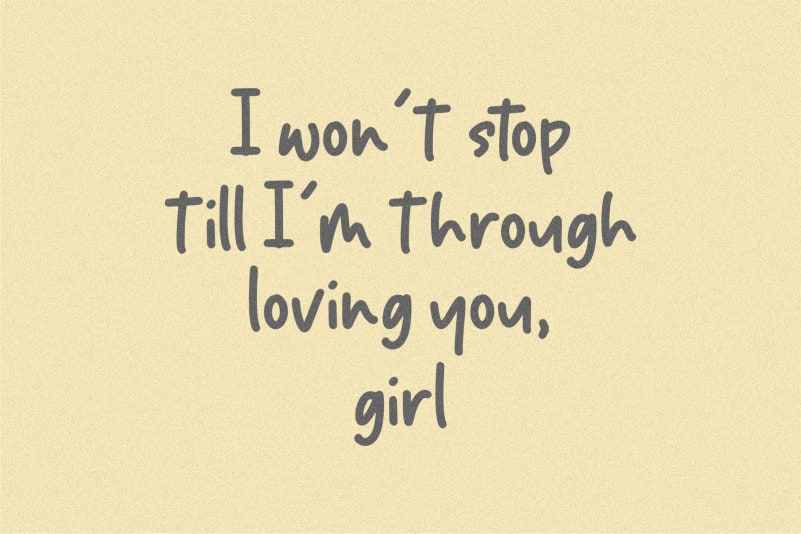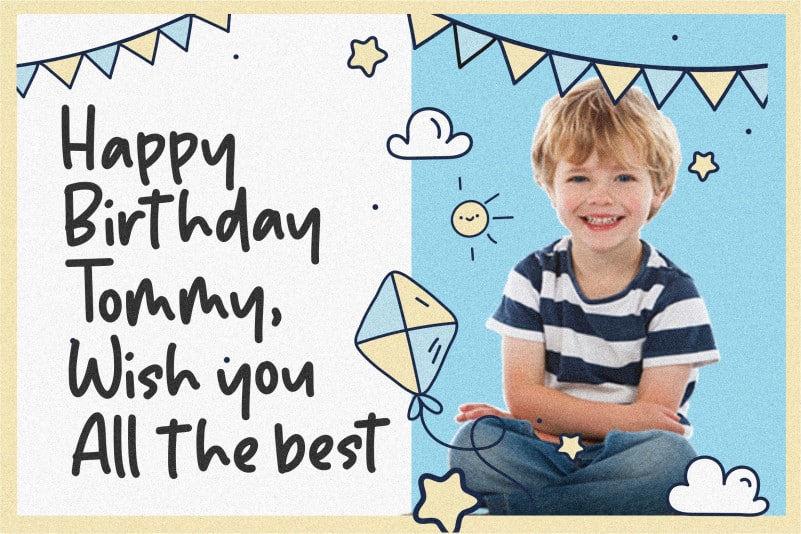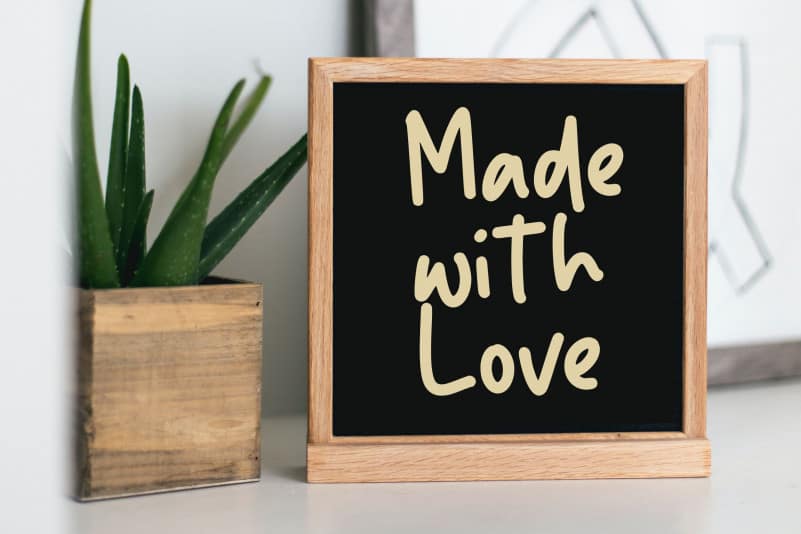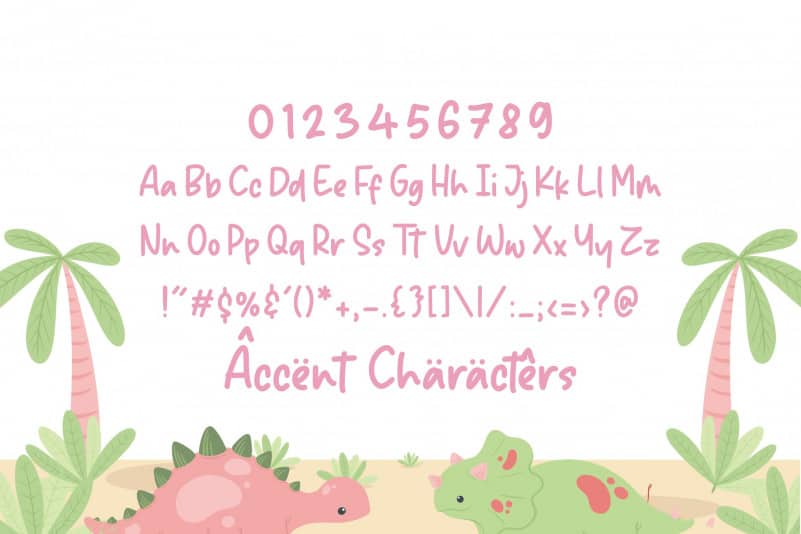
Sparkle Dream Lovely Handdrawn Font
Proudly Present, Sparkle Dream Lovely Handdrawn Font.
Sparkle Dream is a Lovely Handdrawn Font.
Sparkle Dream is perfect for product packaging, branding project, megazine, social media, wedding, or just used to express words above the background.